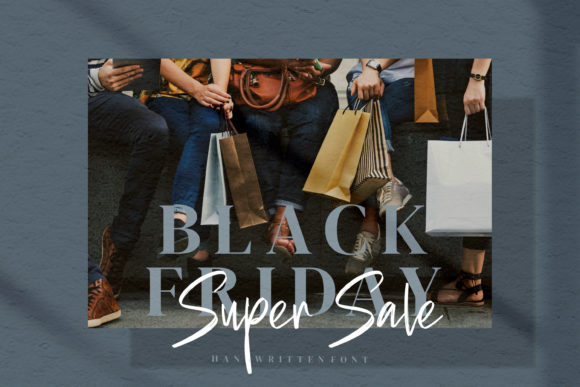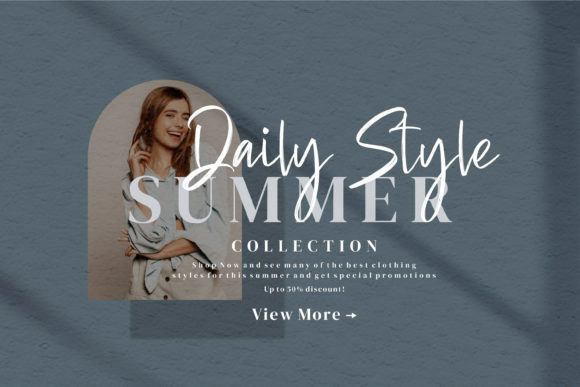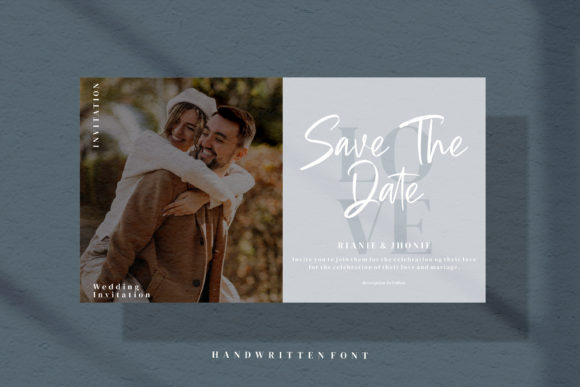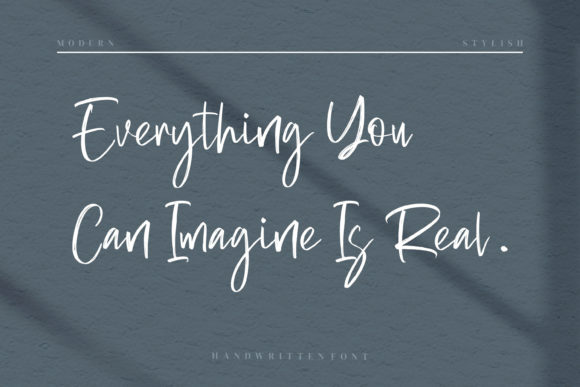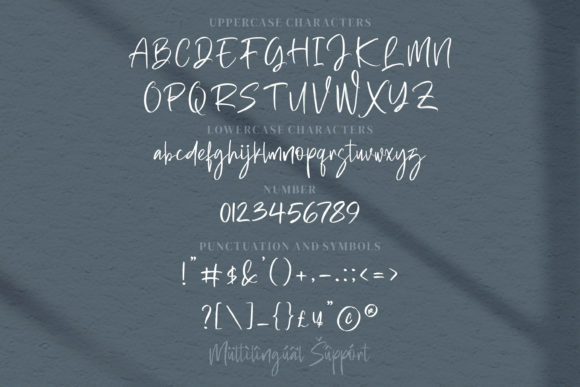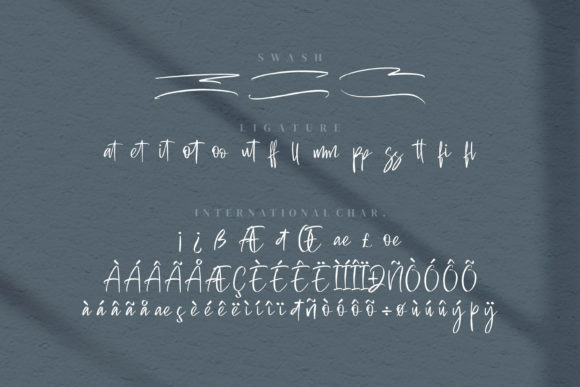
Introduction to Dettfass Trafalgar Font
Have you ever been working on a design project, pouring your heart and soul into it, and suddenly, you need that perfect font to elevate it to the next level? That’s exactly what happened to me the other day when I was working on a branding project for a luxury boutique. I was searching for a font that would give my design a touch of sophistication and elegance, and that’s when I stumbled upon the Dettfass Trafalgar Font.
This beautiful cursive brushed handwritten font is a game-changer for any design project. With its unique feel and stunning impact, it’s the perfect addition to any creative project, from logo designs to advertisements and more. Whether you’re a seasoned designer or just starting out, the Dettfass Trafalgar Font is a valuable resource that will take your designs to the next level.
Key Features of Dettfass Trafalgar Font
- High-quality design resource ideal for creative projects, offering a sophisticated and elegant aesthetic.
- Perfect for use in logos, branding, and other visual identity elements, thanks to its clean and modern design.
- Designed to be highly legible, making it an excellent choice for body text and other large-scale typography applications.
Honest Review: Dettfass Trafalgar Font
I recently had the chance to work with the Dettfass Trafalgar Font, and I must say it’s been a solid addition to my design resource collection. The high-quality font is perfect for a creative project that requires a touch of elegance.
However, there are a few limitations to keep in mind: ⚠️
- Limited font styles – The font only comes in a few styles, which may limit its versatility for more complex design projects.
- No bold font option – The lack of a bold font option can make it difficult to create emphasis in certain designs.
Overall, I’m impressed with the Dettfass Trafalgar Font, and I’d recommend it to designers looking for a high-quality, free design resource for their creative projects.
Common Use Cases for Dettfass Trafalgar Font
The Dettfass Trafalgar Font is perfect for a variety of creative projects, including graphic design, digital art, and even web design. You can use the font to create eye-catching headings, titles, and even entire designs from scratch. With its high-quality design and transparent background, the Dettfass Trafalgar Font is a must-have design resource for any creative project.